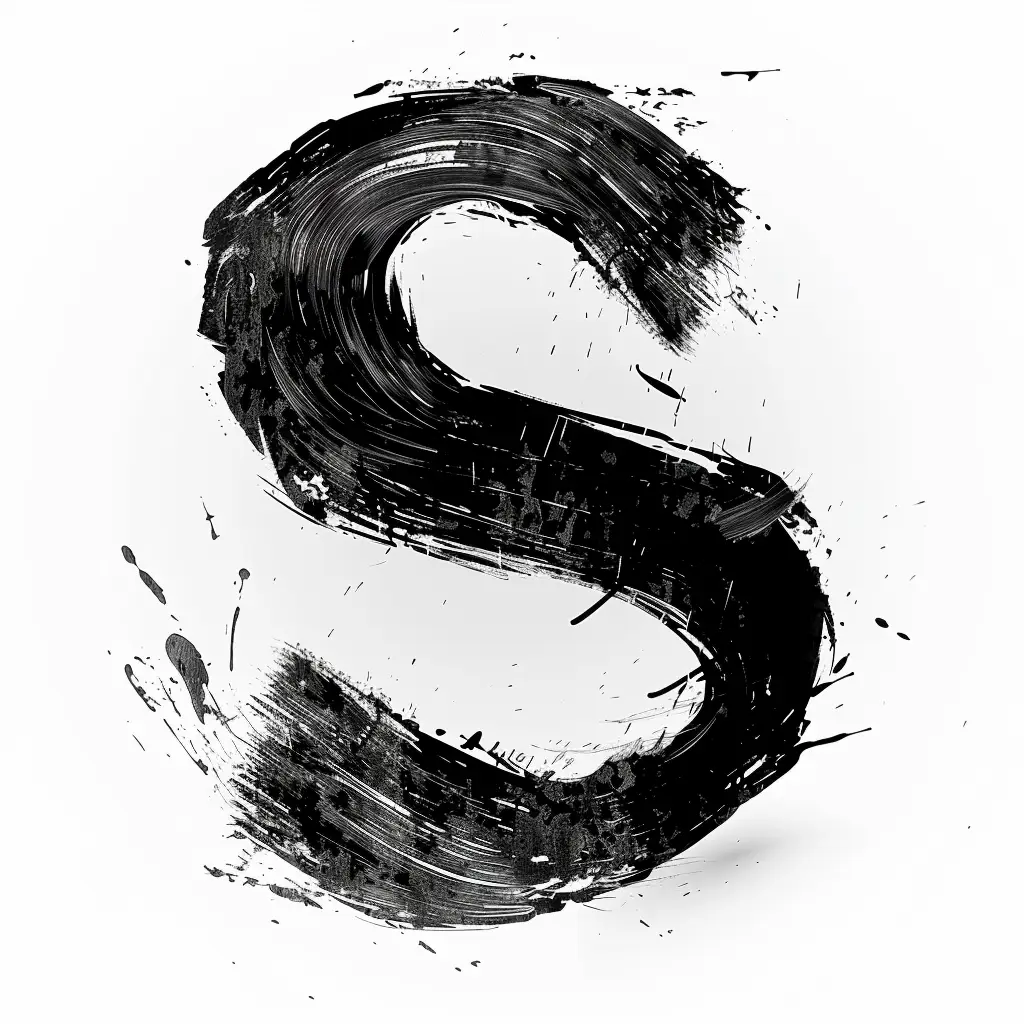
The image features a bold, stylized letter "S" rendered in a dynamic, brushstroke-inspired design. The letter is black with textured, layered strokes and scattered ink splatters, set against a clean white background. Its artistic, expressive style emphasizes movement and a raw, hand-painted aesthetic.